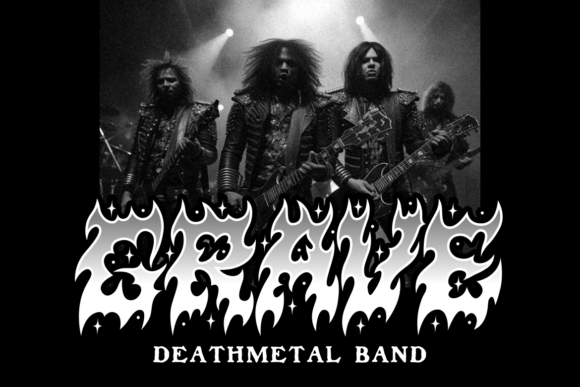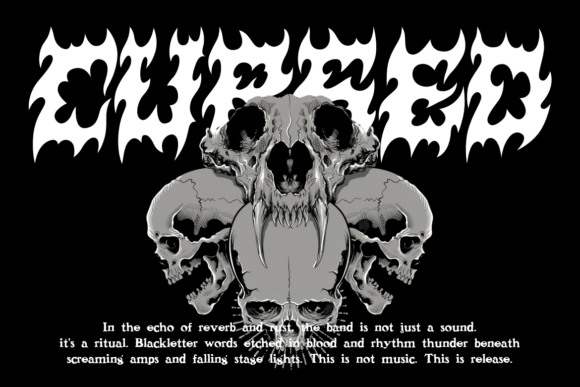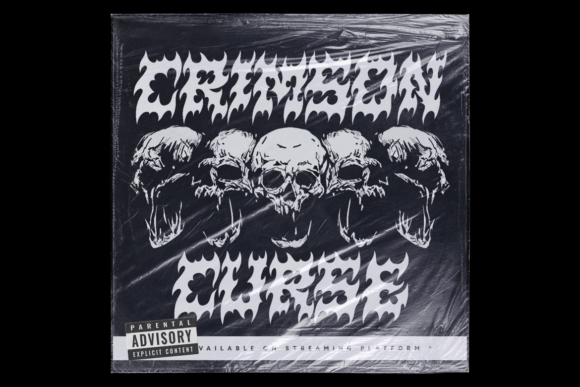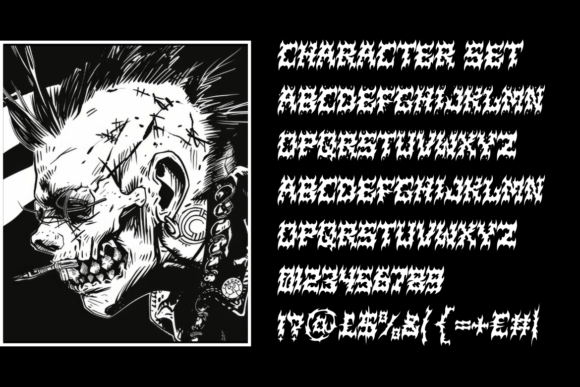
Unleash the Fury: Introducing Darkbeat Outrage Font
In the realm of typography, few fonts evoke the same level of intensity and rebellion as Darkbeat Outrage. This hell-forged death metal typeface is designed to set your message ablaze with fury, fusing gothic horror aesthetics with the raw energy of metal culture. Whether you’re a designer, craftsperson, or metalhead, Darkbeat Outrage is the perfect tool to add a bold, heavy presence to your projects.
The Inspiration Behind Darkbeat Outrage
Darkbeat Outrage draws inspiration from the dark, mysterious world of blackletter typography and the unbridled energy of extreme metal music. This font is not for the faint of heart; it’s designed to roar, not whisper. With its bold, uppercase characters, numerals, and symbols, Darkbeat Outrage is built for compositions that demand attention and exude a sense of rebellion.
Design and Features
Darkbeat Outrage boasts a range of features that make it the perfect choice for designers and craftspersons looking to add a touch of darkness and intensity to their work. Some of its key features include:
- Detailed uppercase characters, numerals, and symbols
- Blackletter-inspired design with a gothic horror aesthetic
- Fuses gothic horror aesthetics with the raw energy of metal culture
- Perfect for extreme metal bands, horror movie titles, and underground fashion branding
- Suitable for a range of applications, including stage banners, streaming platform covers, apparel, stickers, social media campaigns, and gritty packaging designs
Applications for Designers and Craftspersons
Darkbeat Outrage is a versatile font that can be used in a variety of contexts. Here are some ideas for designers and craftspersons looking to unleash their creativity:
- Extreme Metal Bands: Create bold, eye-catching album covers, posters, and merchandise for extreme metal bands.
- Horror Movie Titles: Add a touch of darkness and intensity to horror movie titles, posters, and promotional materials.
- Underground Fashion Branding: Use Darkbeat Outrage to create bold, edgy branding for underground fashion labels.
- Apparel and Stickers: Design bold, eye-catching apparel and stickers for metalheads and fans of extreme culture.
- Social Media Campaigns: Use Darkbeat Outrage to create bold, attention-grabbing social media campaigns for metal bands, horror movies, and underground fashion brands.
- Gritty Packaging Designs: Add a touch of rebellion and intensity to packaging designs for metal-themed products.
Why Choose Darkbeat Outrage?
So why choose Darkbeat Outrage over other fonts? Here are just a few reasons:
- Unique Design: Darkbeat Outrage boasts a unique, hell-forged design that’s unlike any other font.
- High-Contrast Aesthetic: The font’s blackletter-inspired design and gothic horror aesthetic make it perfect for high-contrast compositions.
- Versatility: Darkbeat Outrage can be used in a range of contexts, from album covers to social media campaigns.
- Rebellion and Intensity: The font’s bold, intense design is perfect for adding a touch of rebellion and intensity to any project.
Darkbeat Outrage is a font that’s not for the faint of heart. It’s a hell-forged death metal typeface designed to set your message ablaze with fury. With its bold, uppercase characters, numerals, and symbols, Darkbeat Outrage is perfect for designers and craftspersons looking to add a touch of darkness and intensity to their work. Whether you’re creating album covers, horror movie titles, or underground fashion branding, Darkbeat Outrage is the perfect tool to unleash your creativity and dominate your layout.